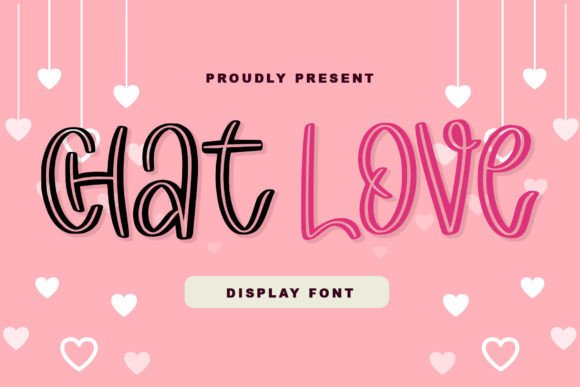
Dive into the captivating world of Chat Love Font, a display font that embodies love and charm. Let your imagination soar and craft designs that exude romance, warmth, and whimsy. With Chat Love Font, you hold the key to unlocking a universe of creative possibilities.
Indulge in the font's enchanting script style, reminiscent of handwritten love letters, heartfelt notes, and cherished memories. Feel the warmth of love envelop your projects as Chat Love Font adds a touch of personality and intimacy. Whether you're designing wedding invitations, creating heartfelt social media posts, or crafting personalized greeting cards, Chat Love Font will infuse your work with a touch of romance and delight.
Unleash your creativity and explore the endless possibilities that await you with Chat Love Font. Its versatility knows no bounds, allowing you to effortlessly bring your vision to life. Design eye-catching logos that leave a lasting impression, create captivating posters that draw attention, or craft stunning website designs that captivate visitors. With Chat Love Font as your creative companion, the world is your canvas.
Elevate your designs to new heights and make a statement with Chat Love Font. Its unique charm and playful spirit will transform your projects into works of art, captivating your audience and leaving them utterly charmed. Join the creative revolution and embrace the love and joy that Chat Love Font brings to your designs.